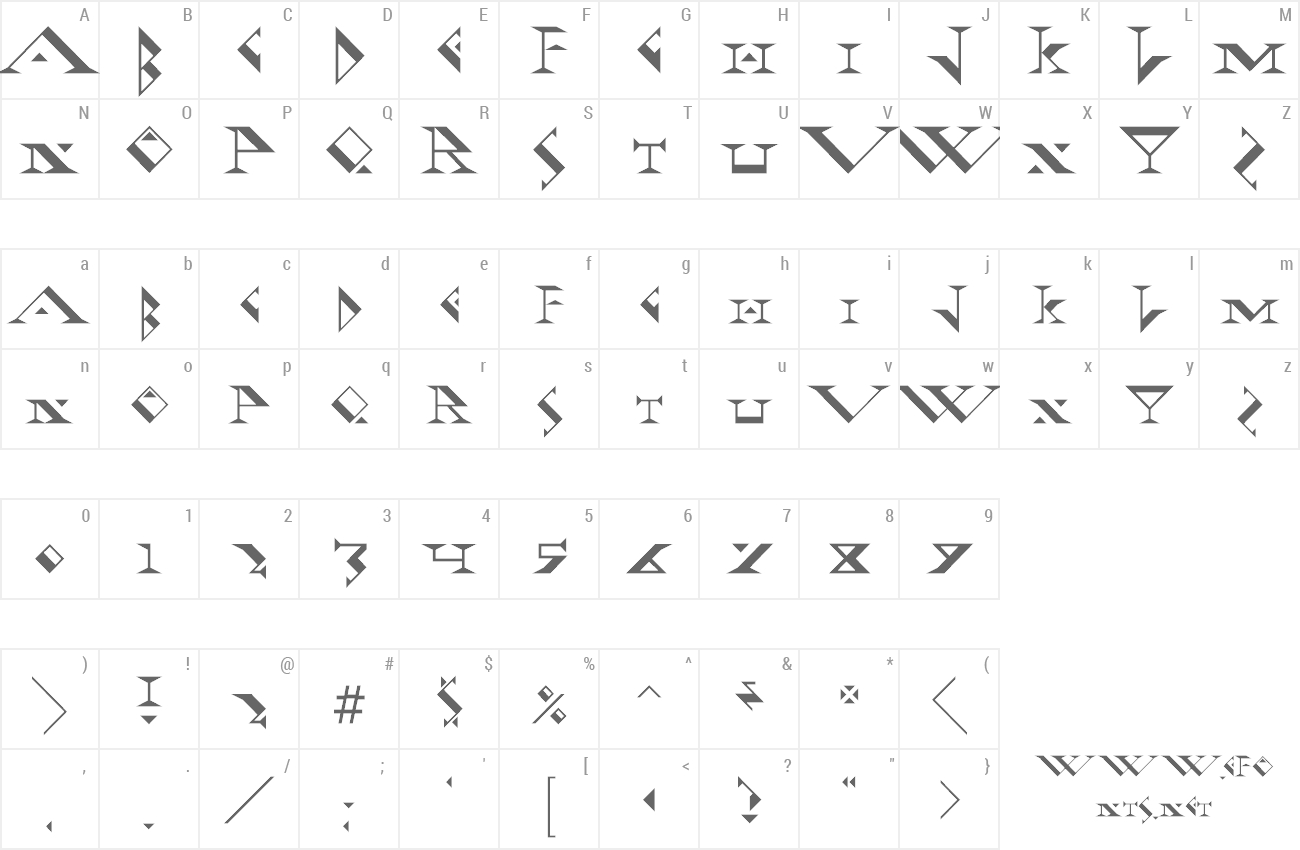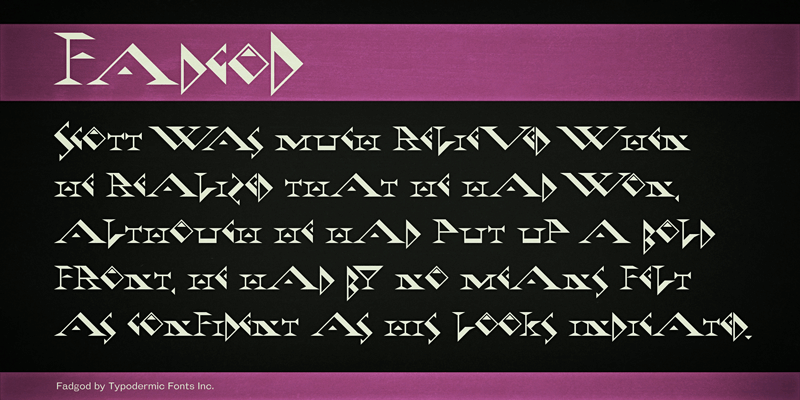
Fadgod is a triangular, lounge font for people who like fonts with a point. Oh, man. Fadgod has all new spacing and kerning. More languages are supported. Fractions and numeric ordinals have been added. Vertical spacing has been optimized for better web performance. This font includes a license that allows free commercial use: sometimes referred to as a desktop license. This allows you to install the font on a computer and use it to create posters, web graphics, game graphics, t-shirts, videos, signs, logos and more. Read the license agreement for details. If you'd like to embed this font in an app, ebook, on the web or anything that's not covered by the desktop license agreement, visit the link below. You'll find distributors who offer different types of licenses or you can contact me for help. http://typodermicfonts.com/fadgod/ |